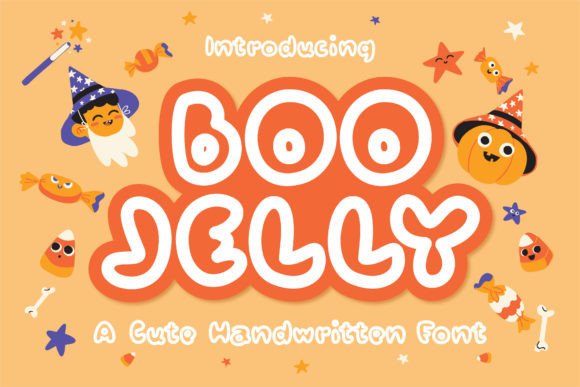
Boo Jelly: A Cute and Flexible Handwritten Font
Boo Jelly is a delightful handwritten display font that brings a sense of playfulness and creativity to any design. Its natural, organic style makes it ideal for projects that require a personal touch or a unique visual identity. Whether you're working on a logo, social media post, or a branding project, Boo Jelly adds charm and character that stands out from the crowd.
What Makes Boo Jelly Special?
Unlike standard fonts, Boo Jelly mimics the look of real handwriting, giving your designs a more authentic and approachable feel. This makes it particularly appealing for brands or individuals looking to connect with their audience on a more personal level. The font's flexibility allows it to work well in a variety of styles, from casual to professional, making it a versatile choice for different creative needs.
Its soft curves and gentle strokes make it easy on the eyes, while its distinct personality ensures it doesnโt get lost in a sea of generic typefaces. Whether you're designing for a children's book, a boutique business, or a personal blog, Boo Jelly can help you express your vision with style.
Who Benefits from Using Boo Jelly?
Boo Jelly is perfect for anyone looking to add a handmade aesthetic to their work. Beginners will appreciate its simplicity and ease of use, while experienced designers may find it useful for adding a unique flair to their projects. Itโs especially popular among bloggers, small business owners, and educators who want to create content that feels warm and inviting.
Entrepreneurs and marketers often turn to Boo Jelly when they need a font that conveys creativity and individuality. It works well for branding materials, such as logos, packaging, and promotional banners. Its playful nature also makes it a great choice for campaigns targeting younger audiences or those who value authenticity and originality.
Practical Uses for Boo Jelly
There are countless ways to incorporate Boo Jelly into your design work. For example, it can be used to create eye-catching headlines for websites, social media posts, or print materials. Its readability at larger sizes makes it an excellent choice for display purposes, while its subtle details add visual interest without overwhelming the viewer.
Boo Jelly is also ideal for creating custom illustrations, greeting cards, or digital art. Its handwritten style gives your work a personal touch, which can be especially valuable when trying to build a connection with your audience. In educational settings, it can be used to make lesson plans, flashcards, or classroom decorations more engaging and visually appealing.
Best Practices for Using Boo Jelly
When using Boo Jelly, it's important to consider the context and purpose of your design. While it's highly versatile, it may not be the best choice for body text due to its decorative nature. Instead, use it for headings, titles, or short phrases where its visual appeal can shine.
Experimenting with different sizes and colors can help you find the right balance between style and readability. Pairing it with simpler fonts can also enhance its impact, allowing it to stand out without clashing with other elements in your design.
Considerations Before Using Boo Jelly
Before choosing Boo Jelly, think about the message you want to convey and the audience you're targeting. While its cute and flexible style is appealing, it may not suit all types of projects. For instance, a high-end luxury brand might prefer a more sophisticated typeface, while a children's product could benefit greatly from Boo Jelly's playful appearance.
Final Thoughts on Boo Jelly
Boo Jelly offers a refreshing alternative to standard fonts, bringing a sense of warmth and creativity to any design. Its natural, handwritten style makes it ideal for a wide range of applications, from personal projects to professional branding. Whether you're a beginner exploring the world of typography or an experienced designer looking for a fresh perspective, Boo Jelly is a font worth considering.
With its versatility and charm, Boo Jelly can help you express your ideas in a way that feels both unique and approachable. So why not give it a try and see how it can elevate your next project?